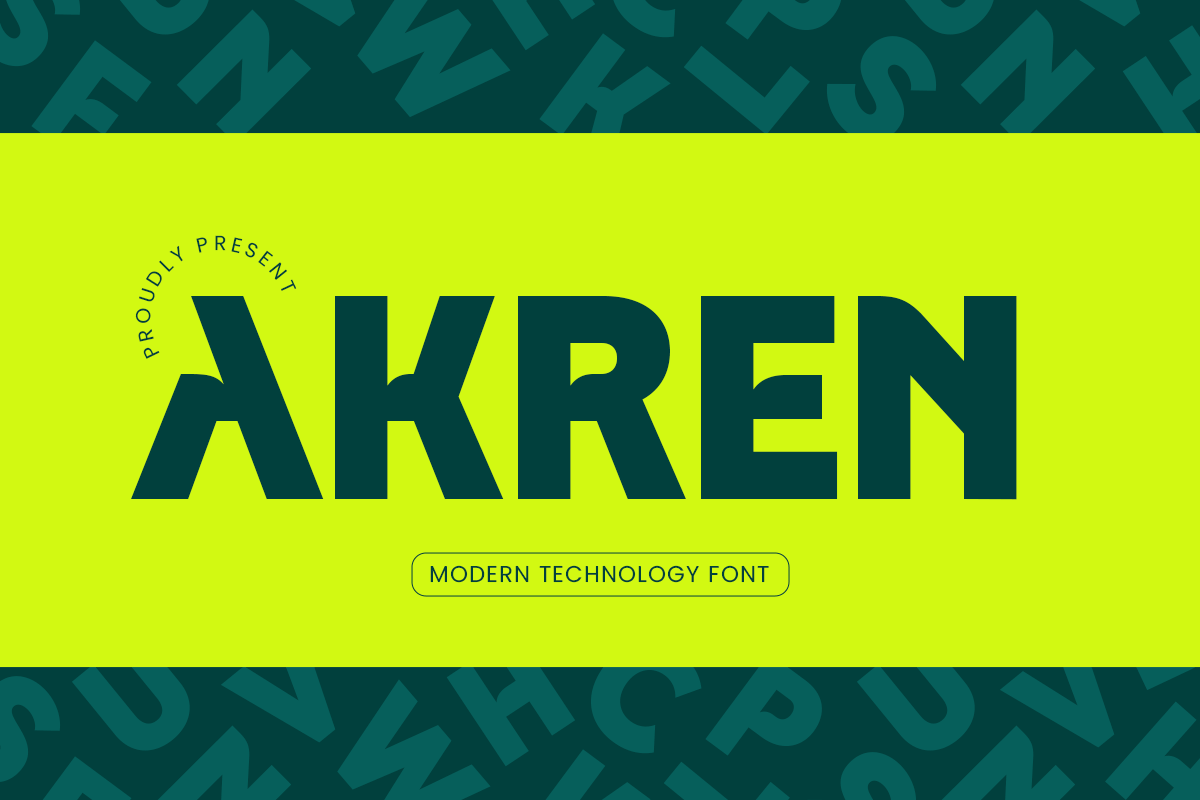
Akren
-Modern Technology FontAkren - Modern Technology Font
AKREN is a modern technology font designed with a futuristic edge and sleek precision. Ideal for branding, tech startups, UI/UX interfaces, and digital products, AKREN brings a clean, innovative feel to any visual identity.
Inspired by cyber aesthetics and minimalist geometry, each letter in AKREN reflects a forward-thinking design style. The font’s sharp forms and consistent spacing offer clarity while delivering a bold, professional appearance in digital or print environments.
Whether you're building a high-tech brand, software interface, or a futuristic poster, AKREN is your go-to font for creating a strong and modern statement.
AKREN – Modern Technology Font Features
Sharp and futuristic character set
Clean geometric style for modern designs
Punctuation, numbers, and symbols included
Uppercase and lowercase letters
OpenType features for extra versatility
Ready with Alternate Characters